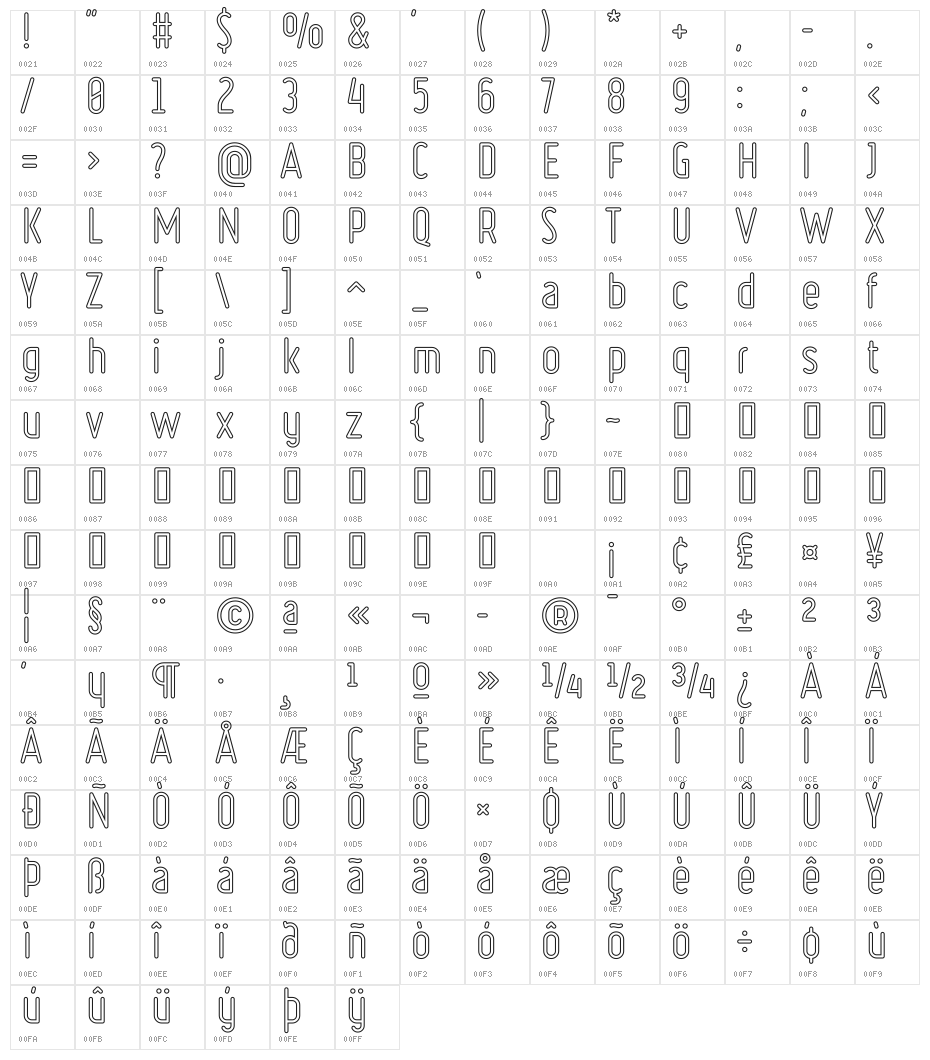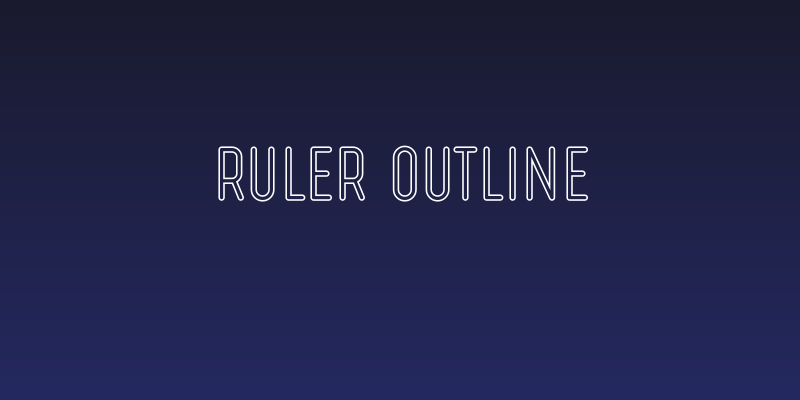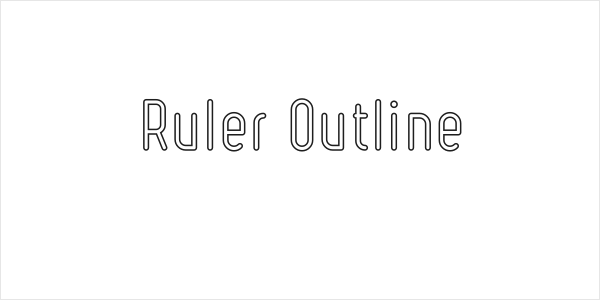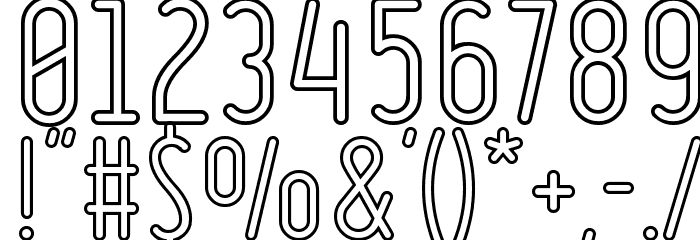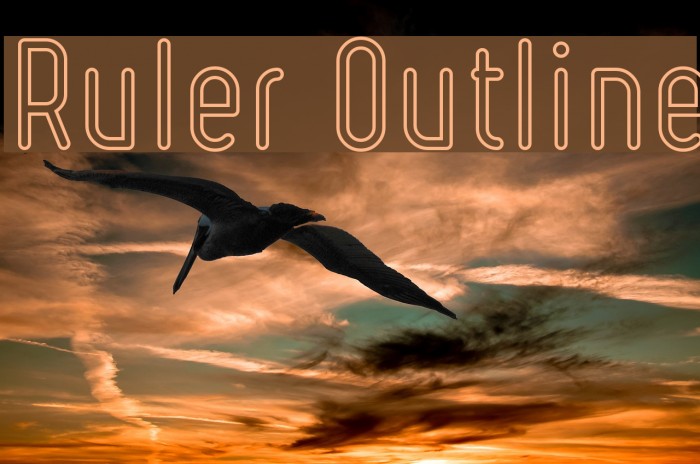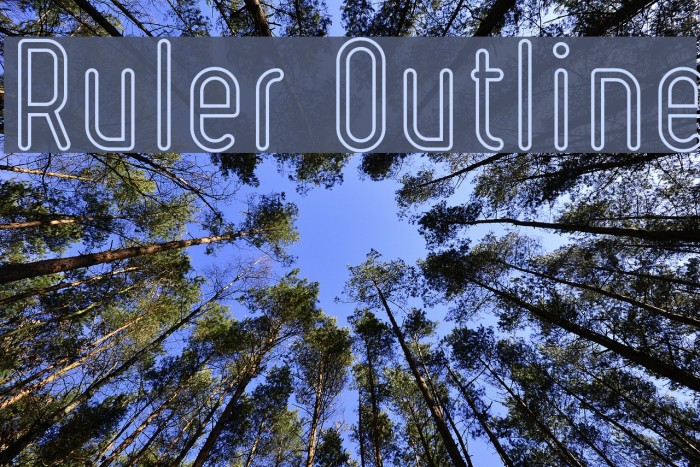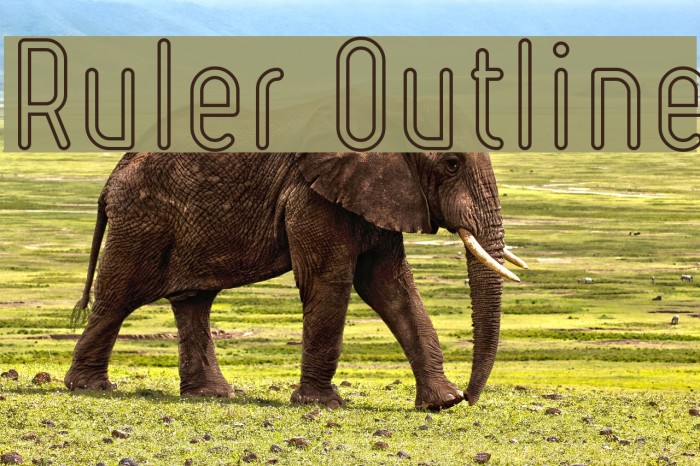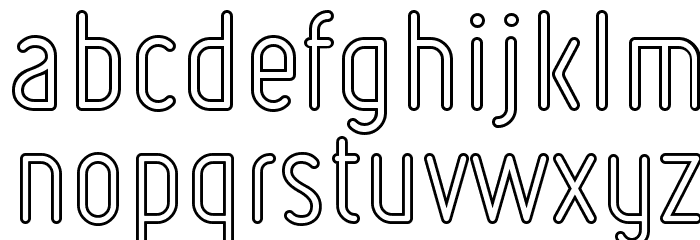
Ruler Outline Font
Ruler Outline Description
This font features a clean, modern outline style with uniform stroke widths, creating a sleek and minimalist appearance. The characters are well-proportioned, with a geometric influence that lends a sense of precision and clarity. The uppercase and lowercase letters maintain a consistent height and width, while the numerals and special characters are designed to complement the overall aesthetic. The open, airy design makes it suitable for a variety of applications where readability and style are paramount.
| Proposed Projects | Ideal for branding, signage, posters, and digital media where a contemporary and clean look is desired. |